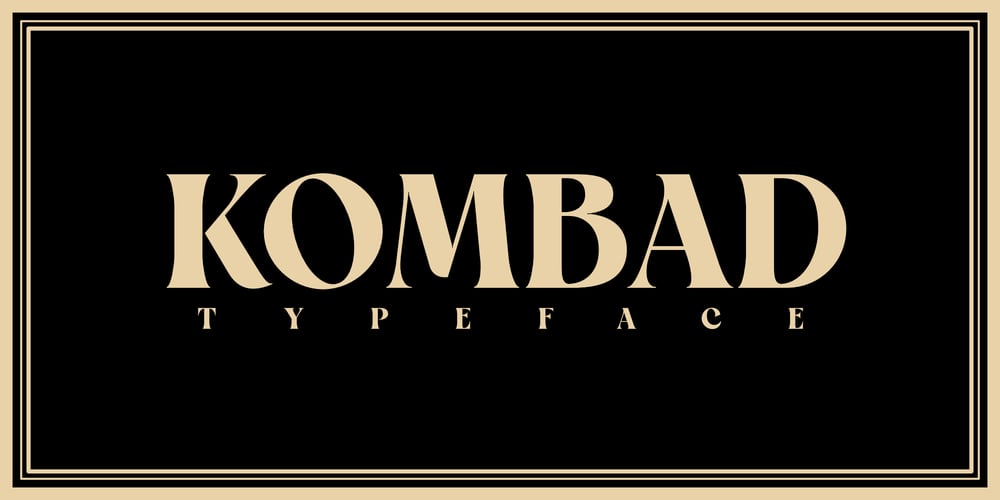
Kombad Font Family was designed by Dicky Safaat Fuadi and published by Your type. Kombad contains 2 styles and family package options. Kombad Typeface is a bold and expressive serif font designed to make a statement in display settings, branding, and editorial layouts. Its vintage-inspired curves and sharp details make it ideal for creating a timeless yet modern look. Kombad comes equipped with versatile OpenType features such as italic styles, alternates, and ligatures for enhanced creativity. It also includes fractions, old style numbers, and both superscript and subscript, offering flexible options for detailed typesetting. Ideal for book cover, logo, label, packaging, book menu, website, etc. The limit is your creativity.